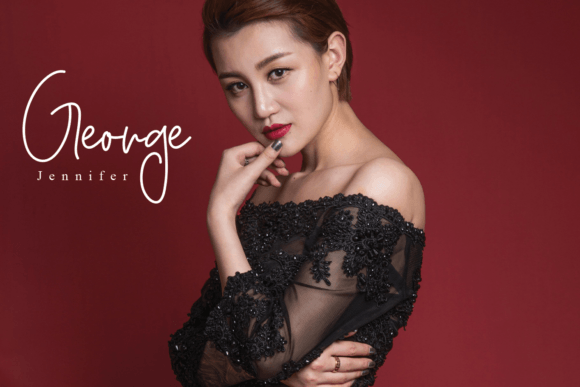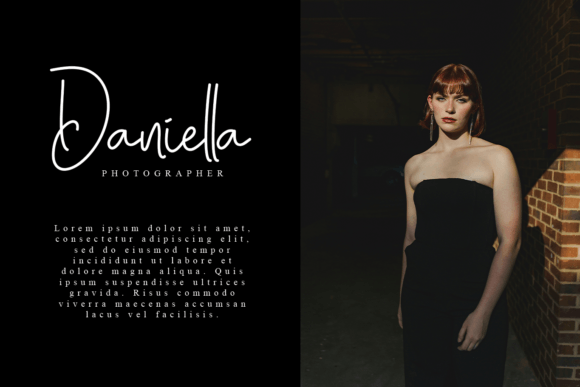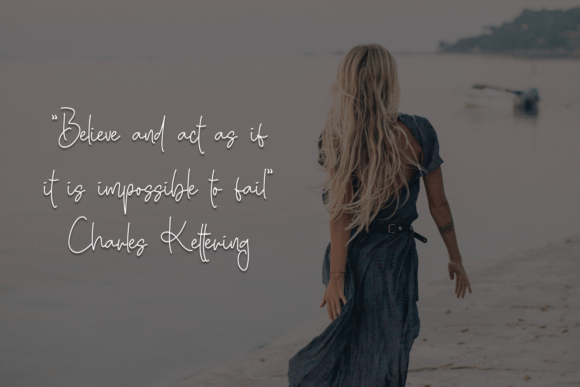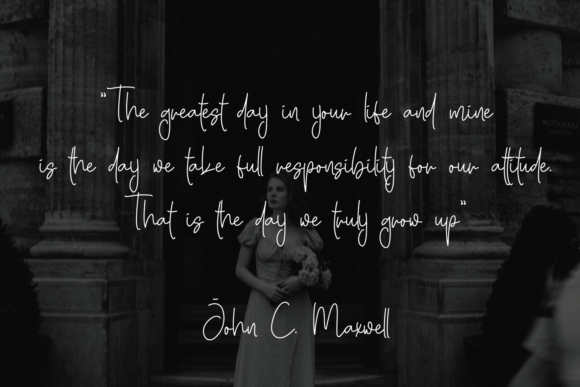
Unleash Your Inner Beach Bum with Beach Paradise Font
There’s something about a warm summer breeze, the sound of waves crashing against the shore, and the feeling of sand between your toes that sparks creativity. As a designer, you’ve probably experienced this magic moment at some point, and it’s what drives you to create stunning visual content that transports people to their favorite beach destinations.
Introducing Beach Paradise Font, a flowing and elegant handwritten font that captures the essence of a beachside getaway. Whether you’re designing wedding invitations, creating social media posts, or crafting beautiful stationery, this font is the perfect companion to help you convey a sense of freedom and joy. With its chic style, Beach Paradise Font is a valuable addition to any designer’s toolkit, offering endless possibilities for creative expression.
- Unique Characteristics: Hand-drawn, beach-inspired illustrations and ornaments; supports OpenType features for advanced typography
- Font Styles: Regular, Italic, Bold, Bold Italic, with ornaments and illustrations
Beach Paradise Font Review
I recently had the chance to dive into the Beach Paradise Font and share my honest thoughts with you. Let’s get started!
- The font has a beautiful, laid-back feel to it. Perfect for creating a relaxed, beachy vibe in your designs.
- The font is highly legible, even at smaller sizes, making it great for body text and headlines alike.
- The font family is quite extensive, offering a range of weights and styles to choose from.
- The font may not be the best choice for more formal or professional designs, as it can come across as too casual.
- The font’s ‘beachy’ theme may not be to everyone’s taste, and it may not be versatile enough for all design projects.
- Some users may find the font’s irregularities (e.g. uneven letter spacing) to be distracting or unprofessional.
Overall, the Beach Paradise Font is a great choice for designers looking to create a fun, laid-back atmosphere in their designs. While it may not be suitable for all projects, it’s a solid addition to any designer’s font library.
Beach Paradise Font is perfect for:
- Creating tropical and beach-themed designs.
- Adding a touch of elegance to your branding materials.
- Designing invitations and event materials.
Alternative Fonts to Beach Paradise
Playfair Display is a luxurious and elegant serif font, perfect for creating a high-end feel in your designs. It features intricate details and ornate flourishes, making it ideal for wedding invitations, luxury branding, and high-end publications.
Compared to Beach Paradise, Playfair Display has a more formal and sophisticated tone, whereas Beach Paradise is more playful and laid-back. Playfair Display is also more suitable for large-scale typography, while Beach Paradise excels in smaller text sizes.
Great Vibes is a modern and stylish script font, great for creating a fun and lively atmosphere in your designs. It features a relaxed and casual feel, making it perfect for beach-themed designs, summer promotions, and social media graphics.
Compared to Beach Paradise, Great Vibes has a more carefree and spontaneous tone, whereas Beach Paradise is more laid-back and subtle. Great Vibes is also more suitable for short phrases and headings, while Beach Paradise excels in body text.
Pacifico is a beautiful and elegant script font, perfect for creating a warm and inviting atmosphere in your designs. It features a relaxed and casual feel, making it ideal for beach-themed designs, outdoor branding, and summer promotions.